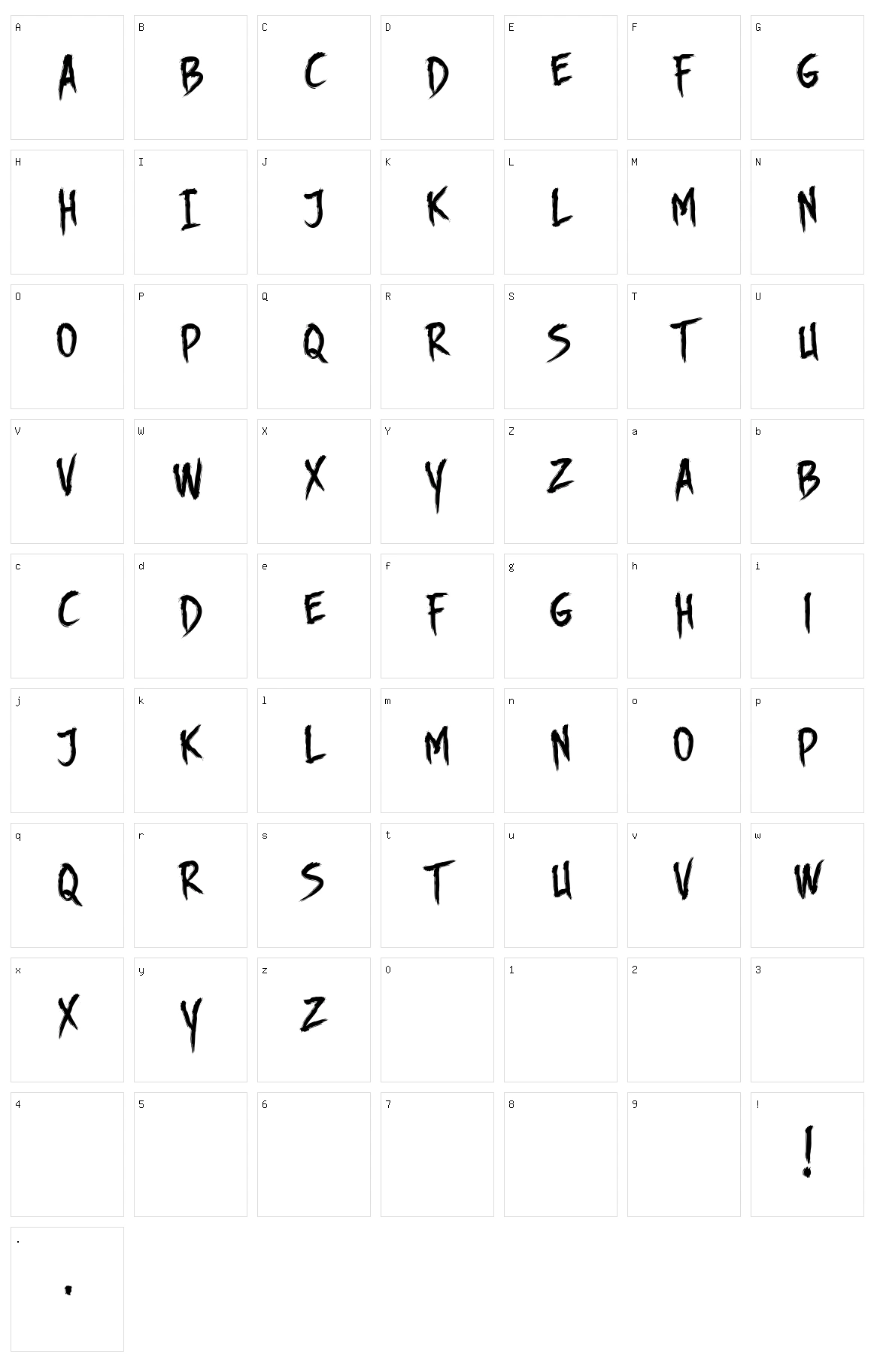
The free font DHF Story Brush is carefully designed by Majestype, showcasing a thoughtful balance of creativity and usability and falls under the Horror font style. When you download the ZIP file, it contains only 141.14 KB of font files, making it lightweight and quick to download. Please review the license details below to understand permitted usage and distribution rights. If license information is not available, we recommend using this font for personal projects only or contacting the author directly for commercial usage permissions.
DHF Story Brush